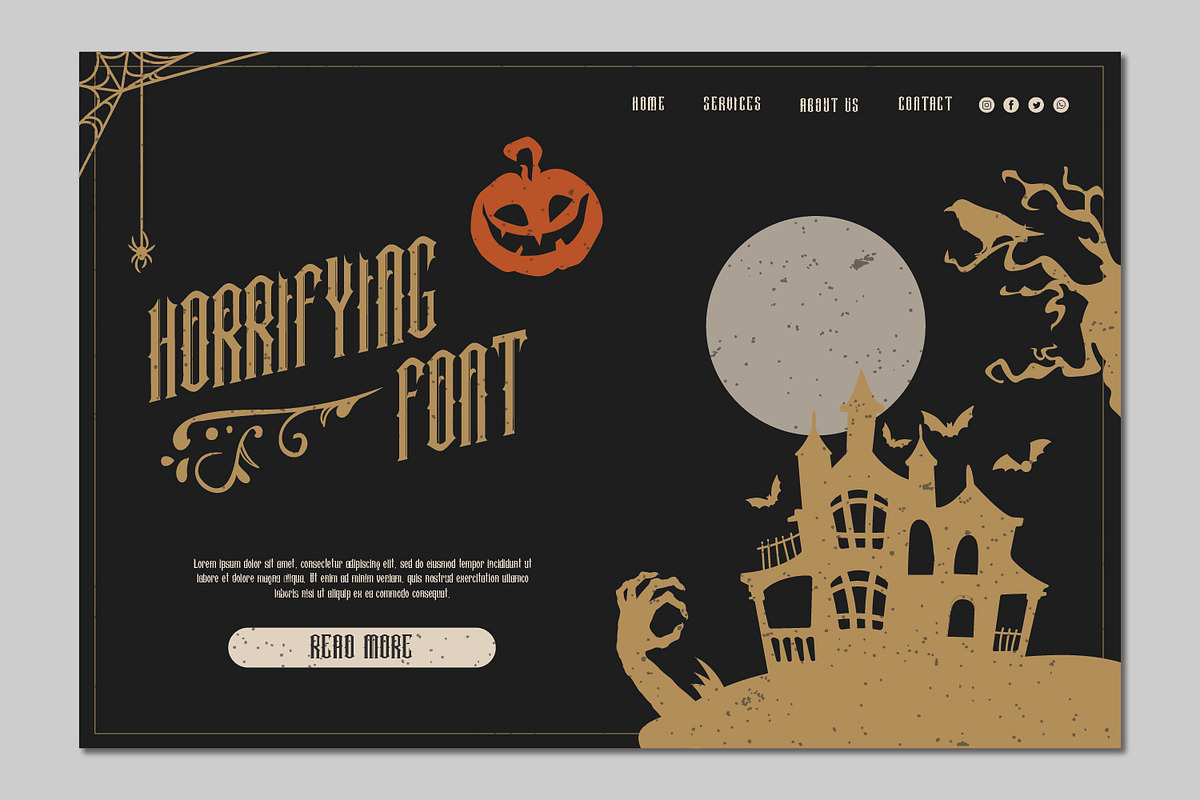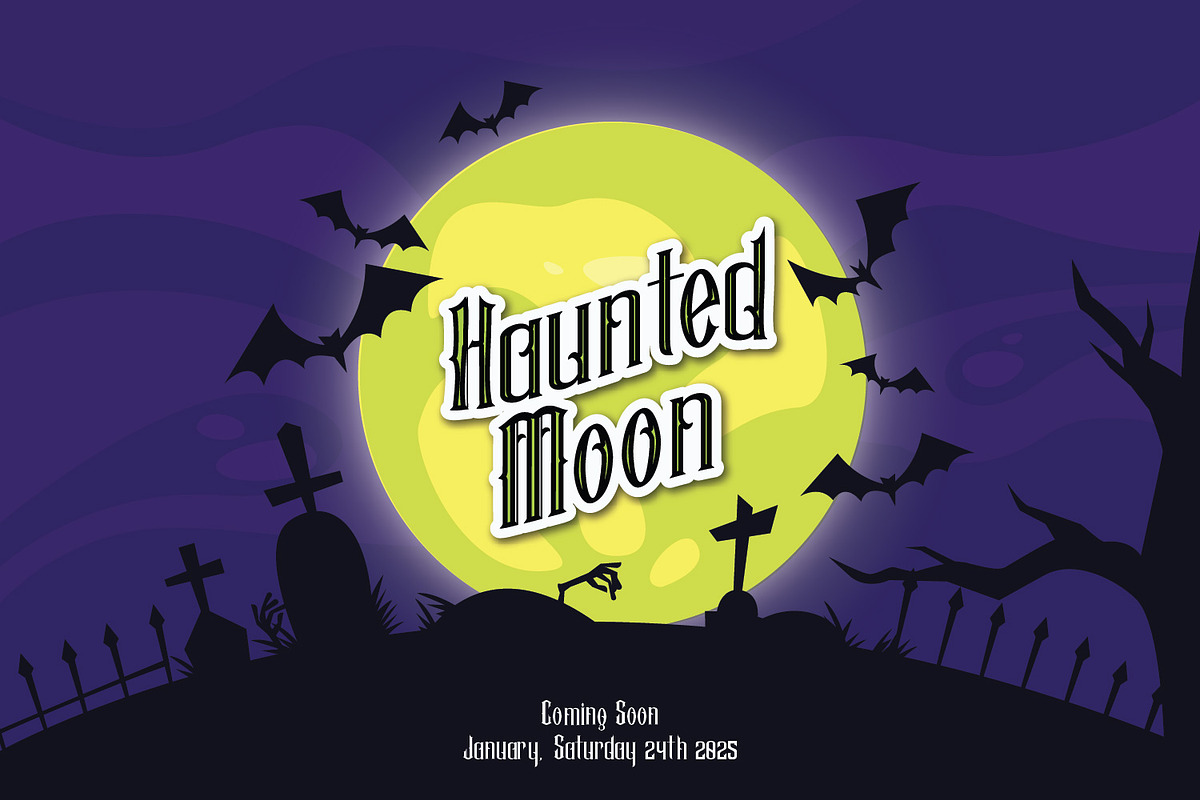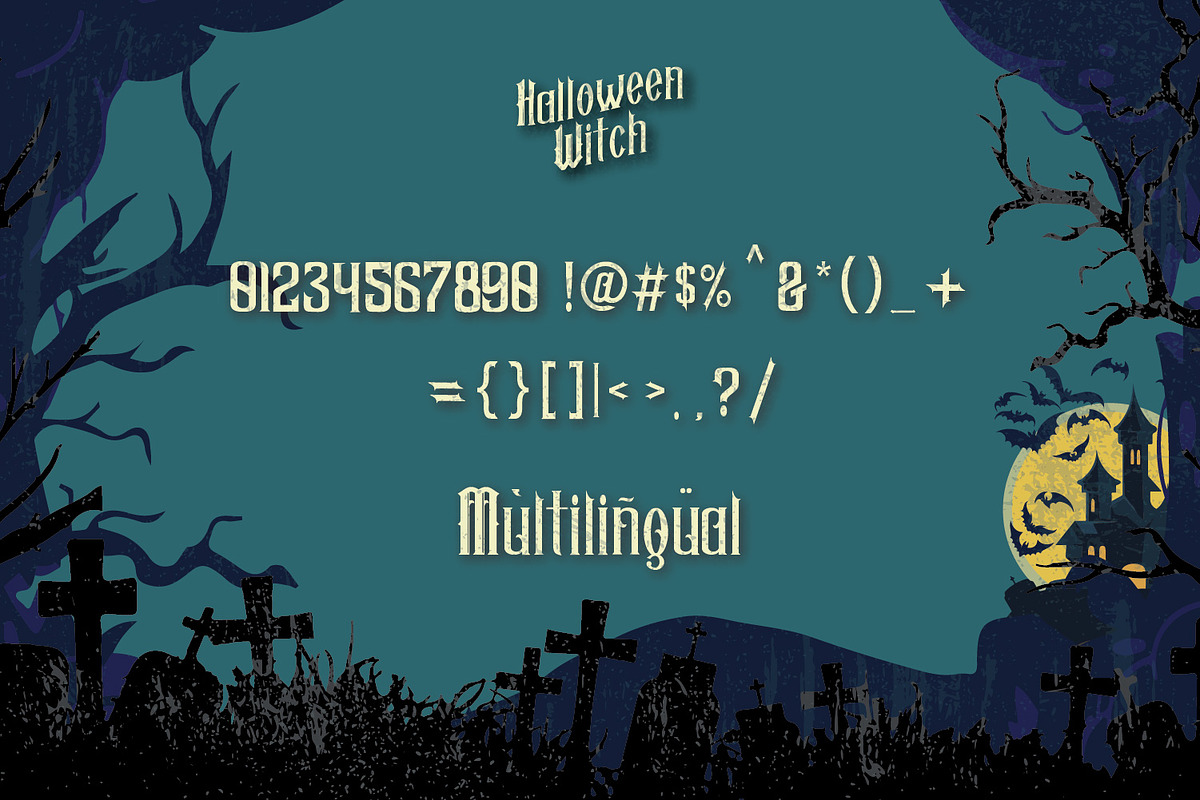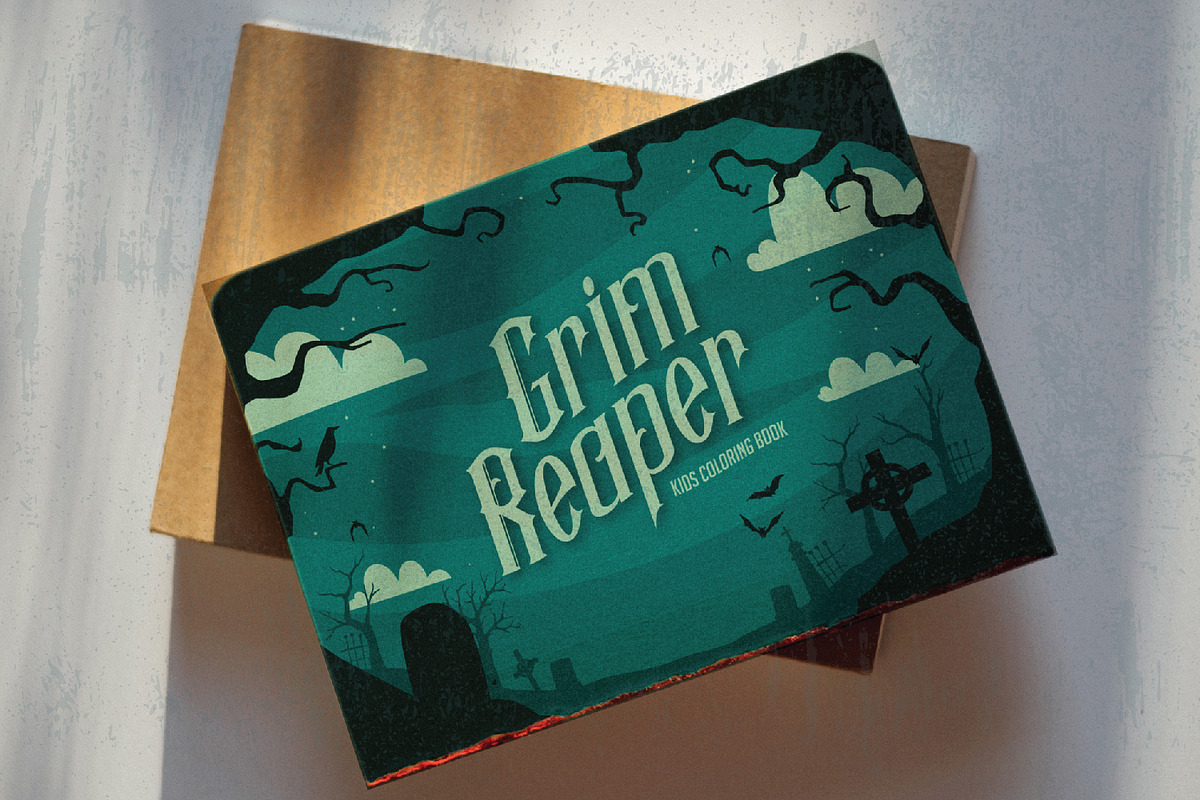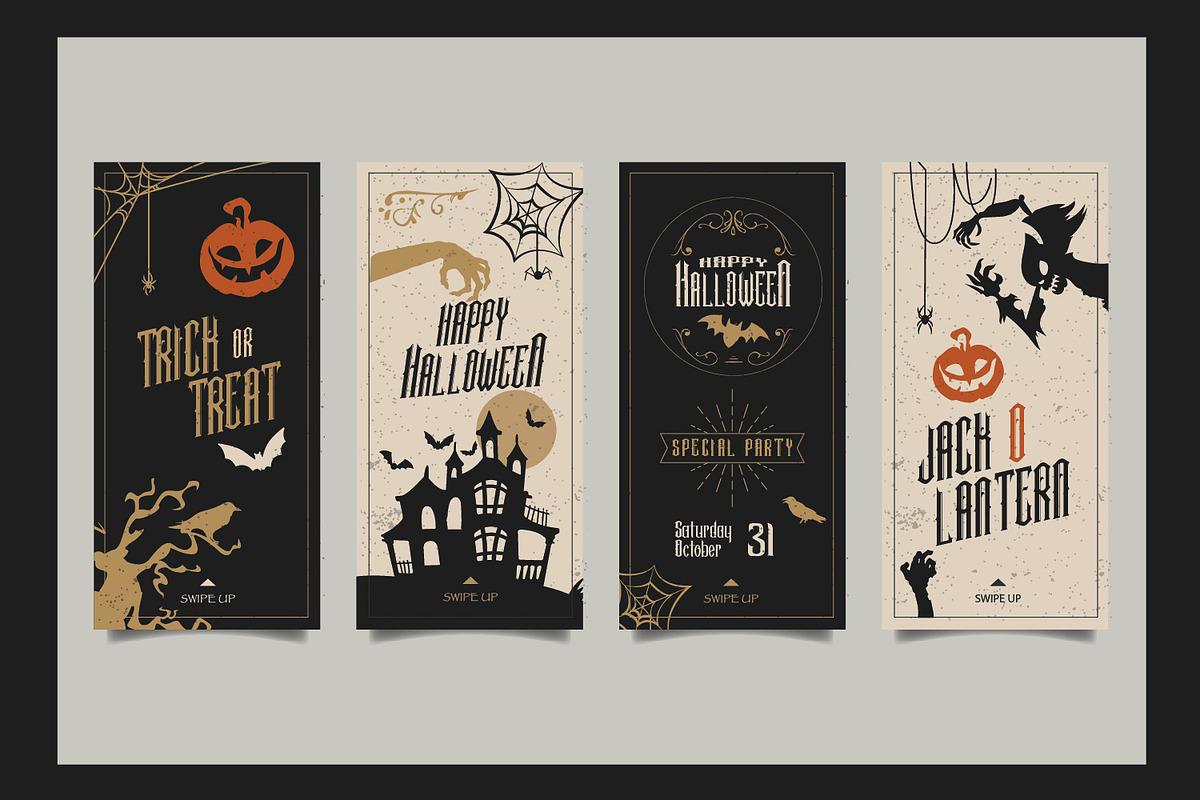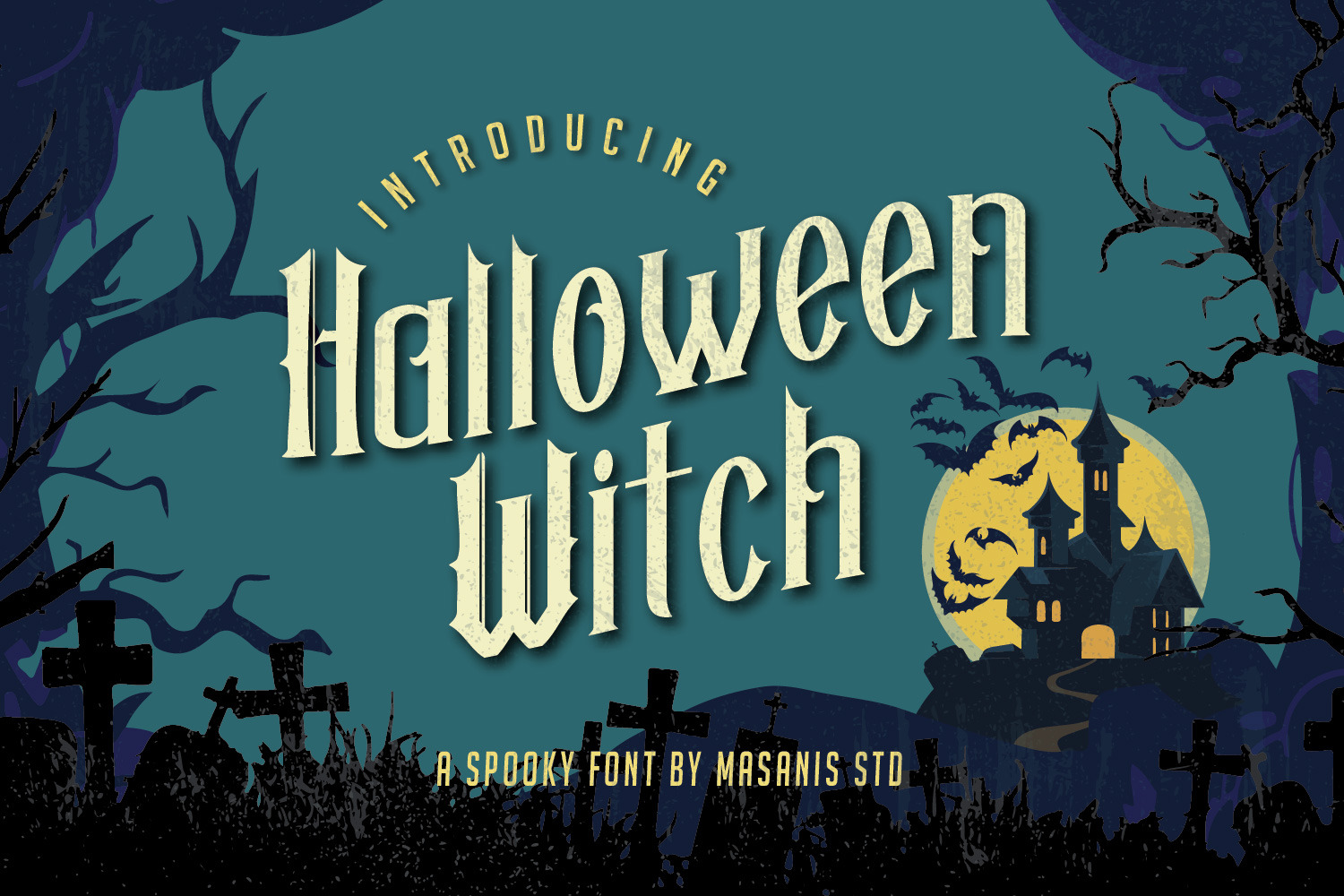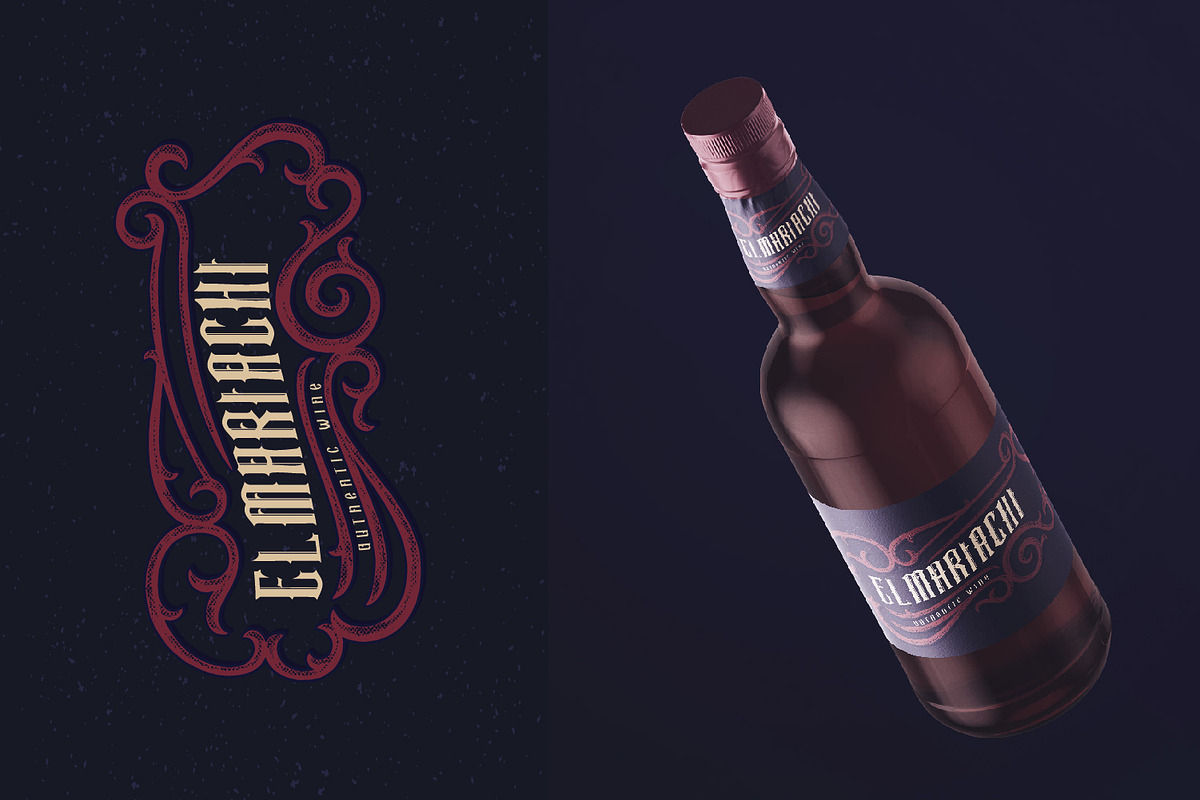
Halloween Witch - Spooky Font
Halloween Witch is a vintage and spooky display font. Add this dramatic font to your favorite designs and notice how it makes them stand out!